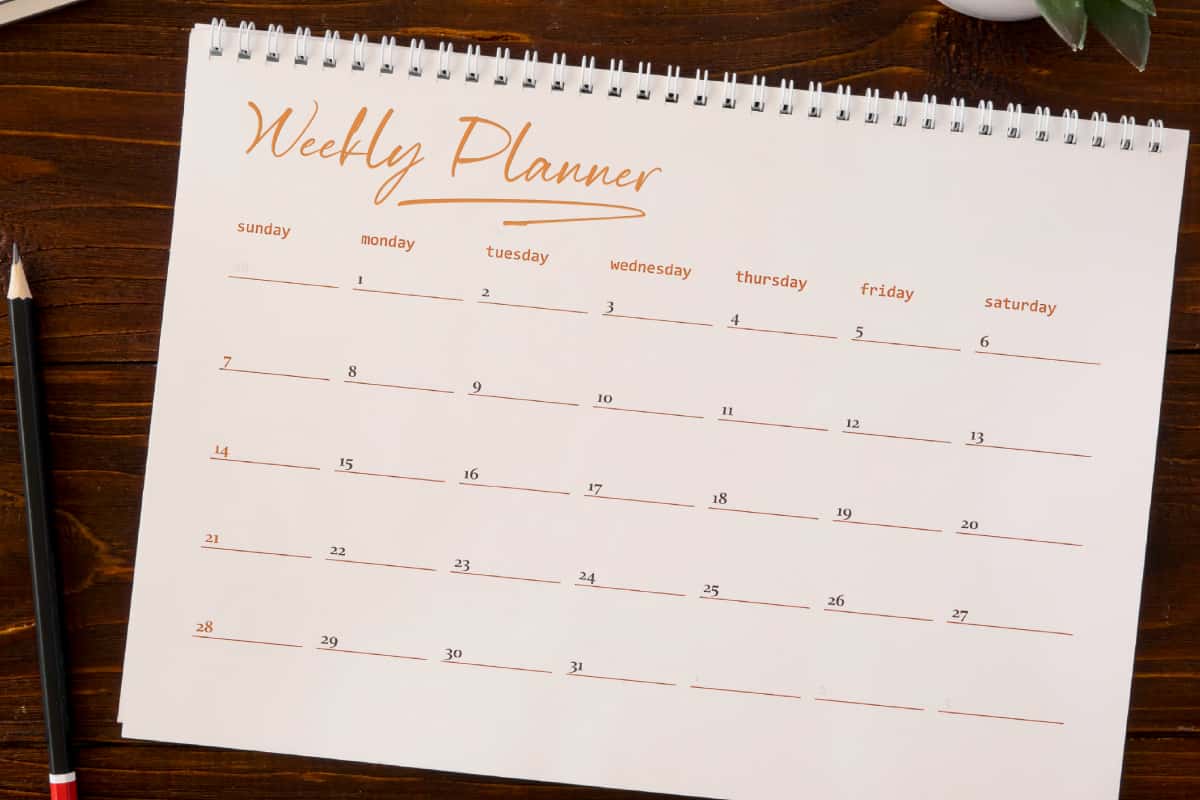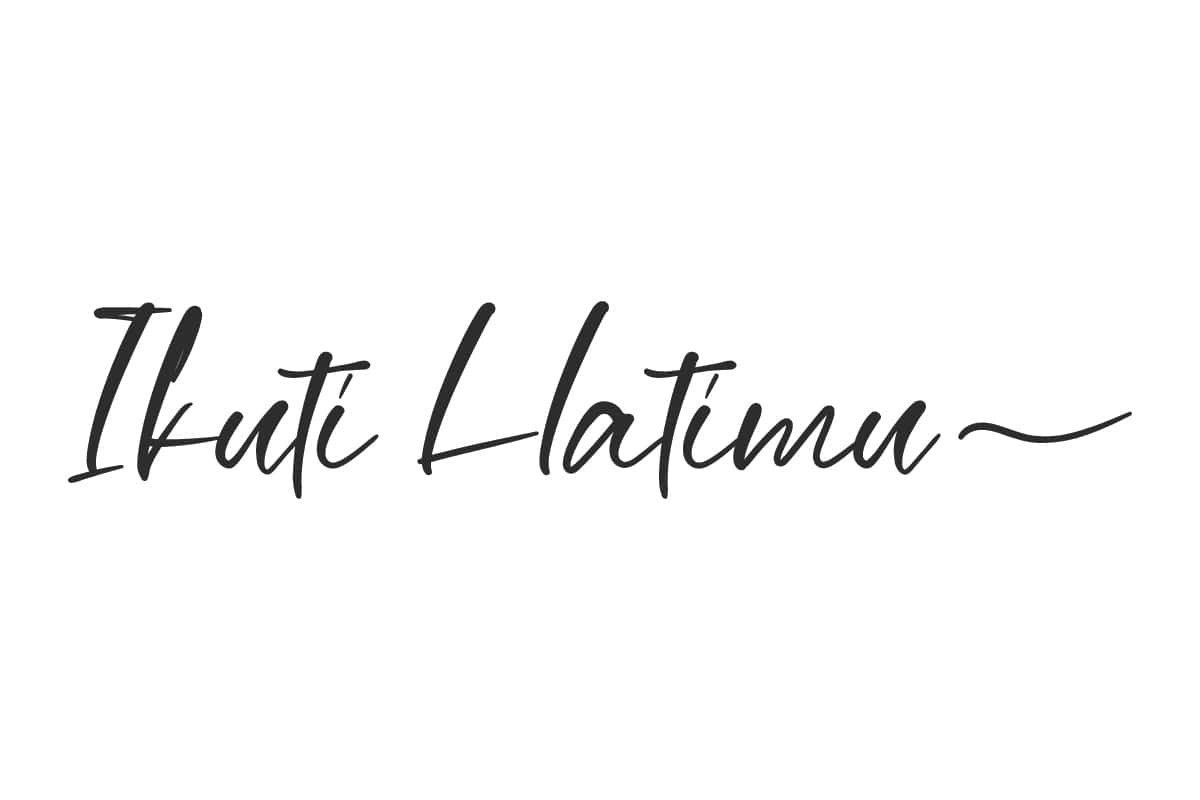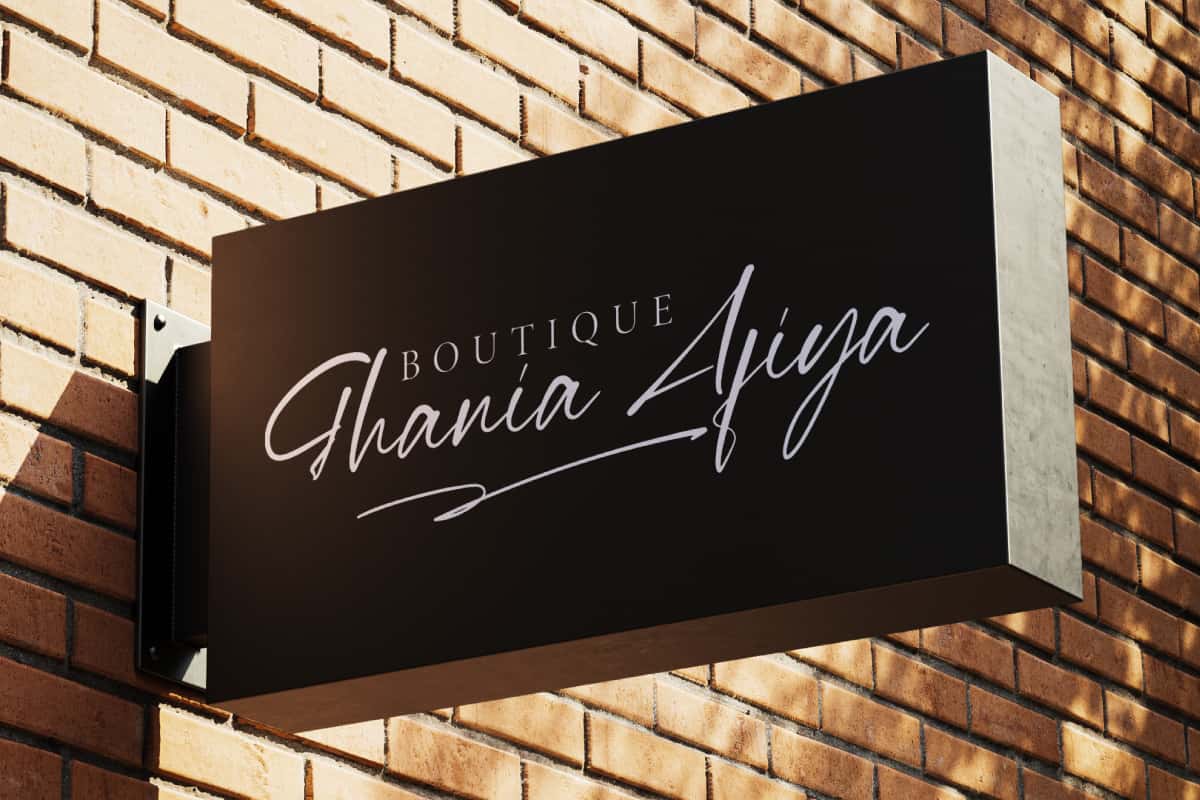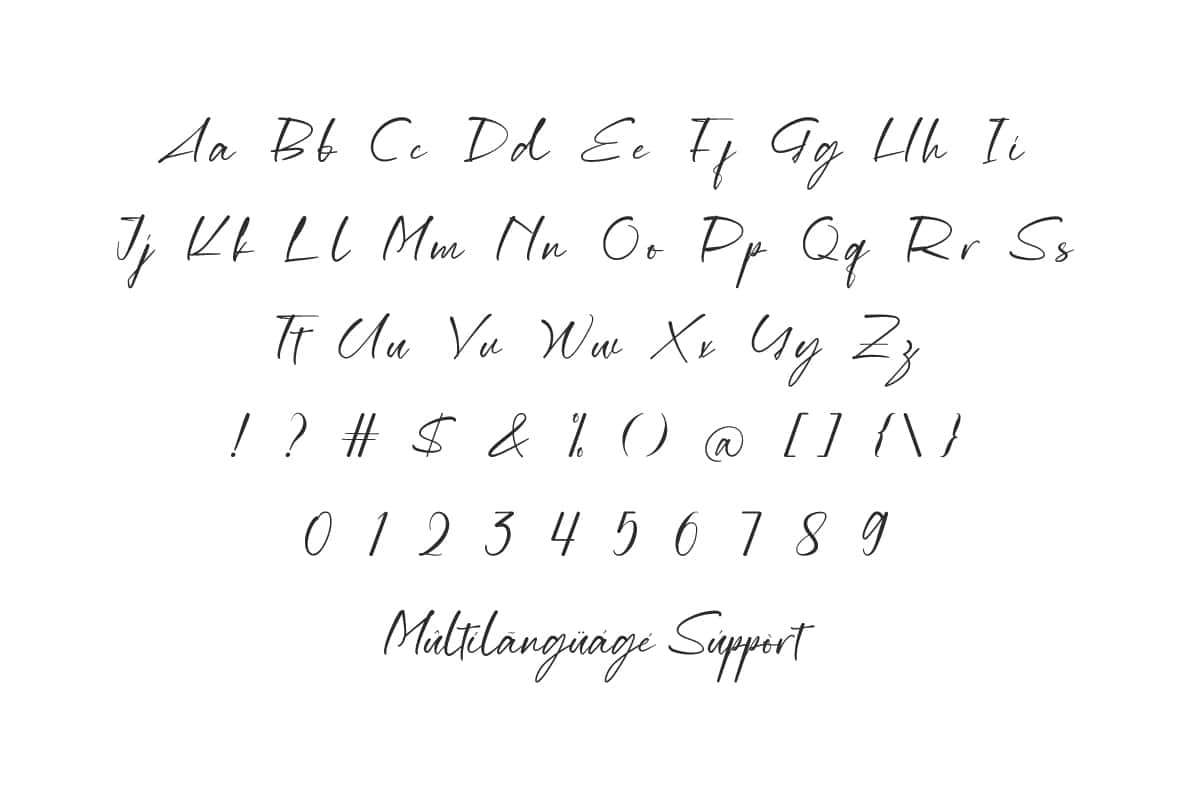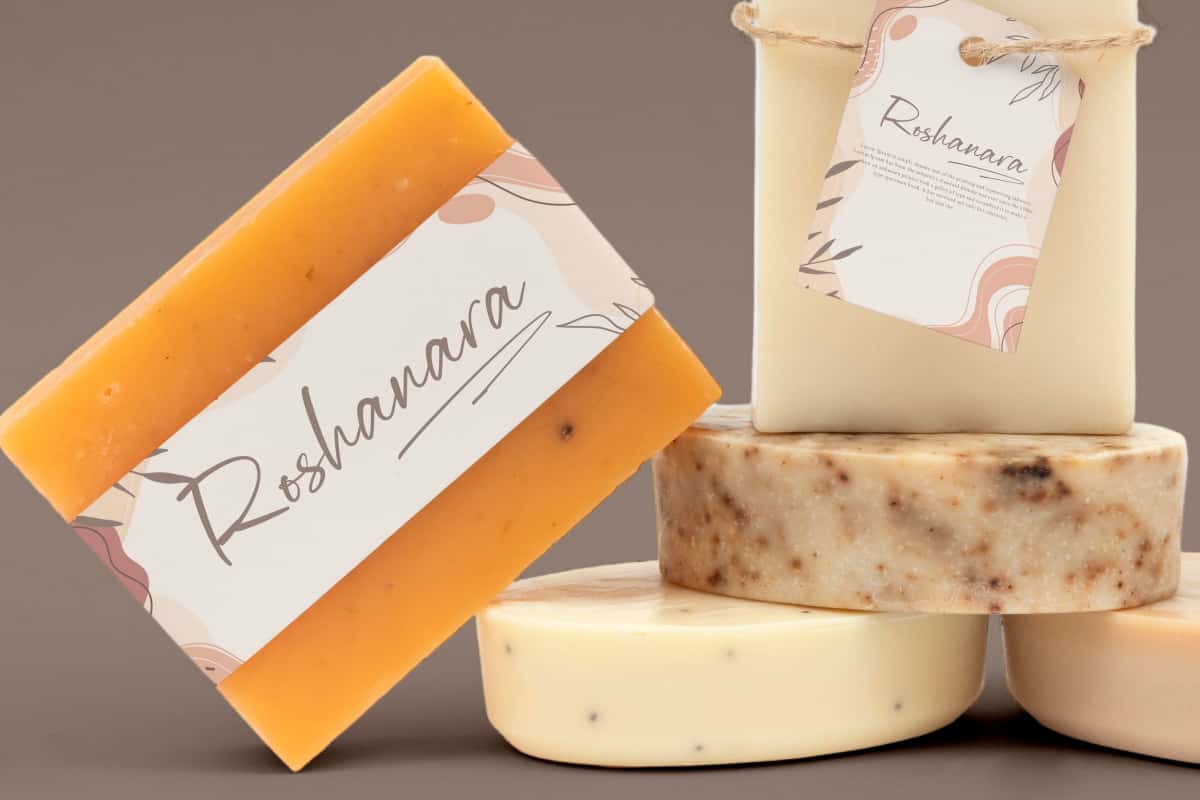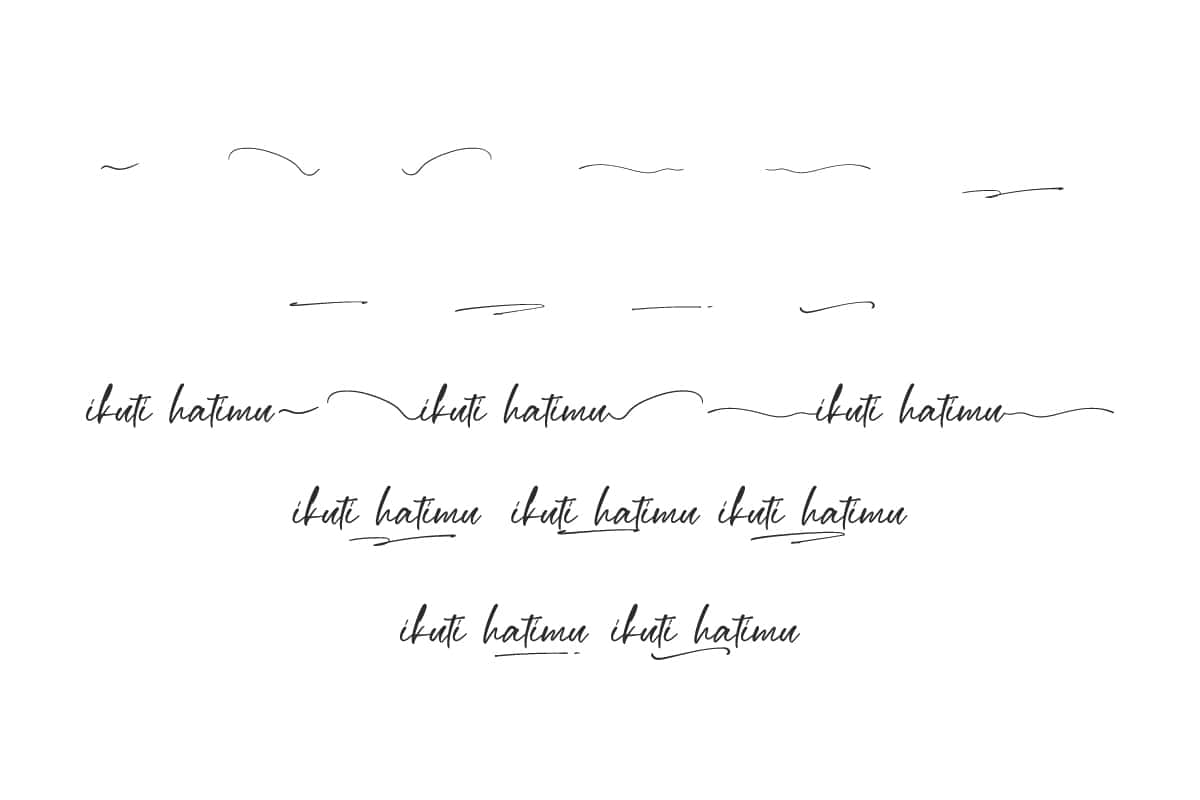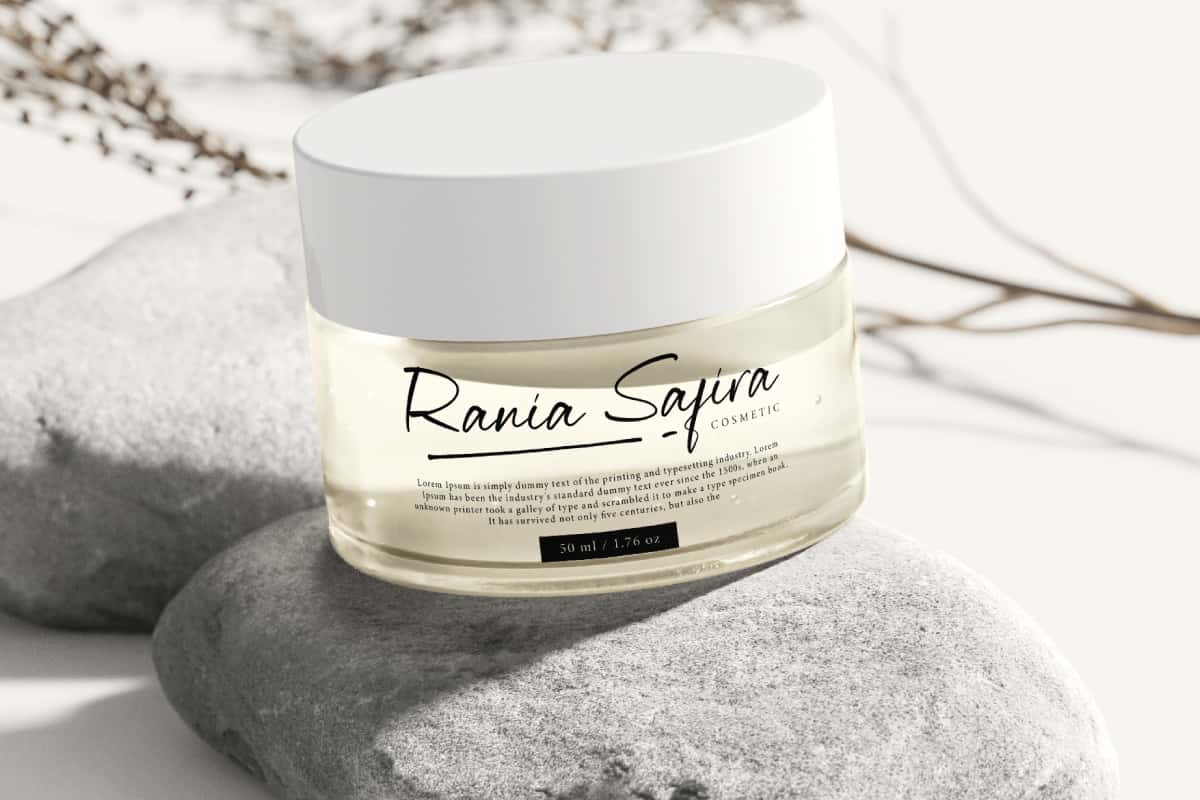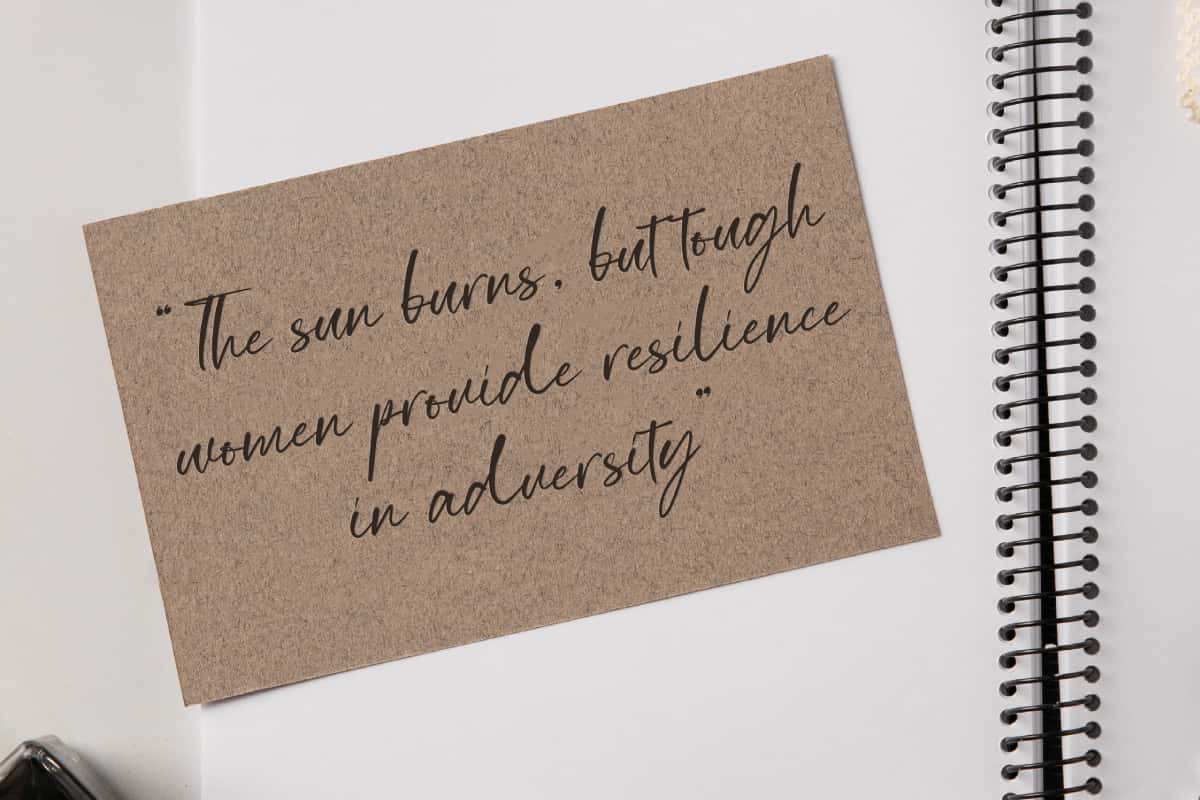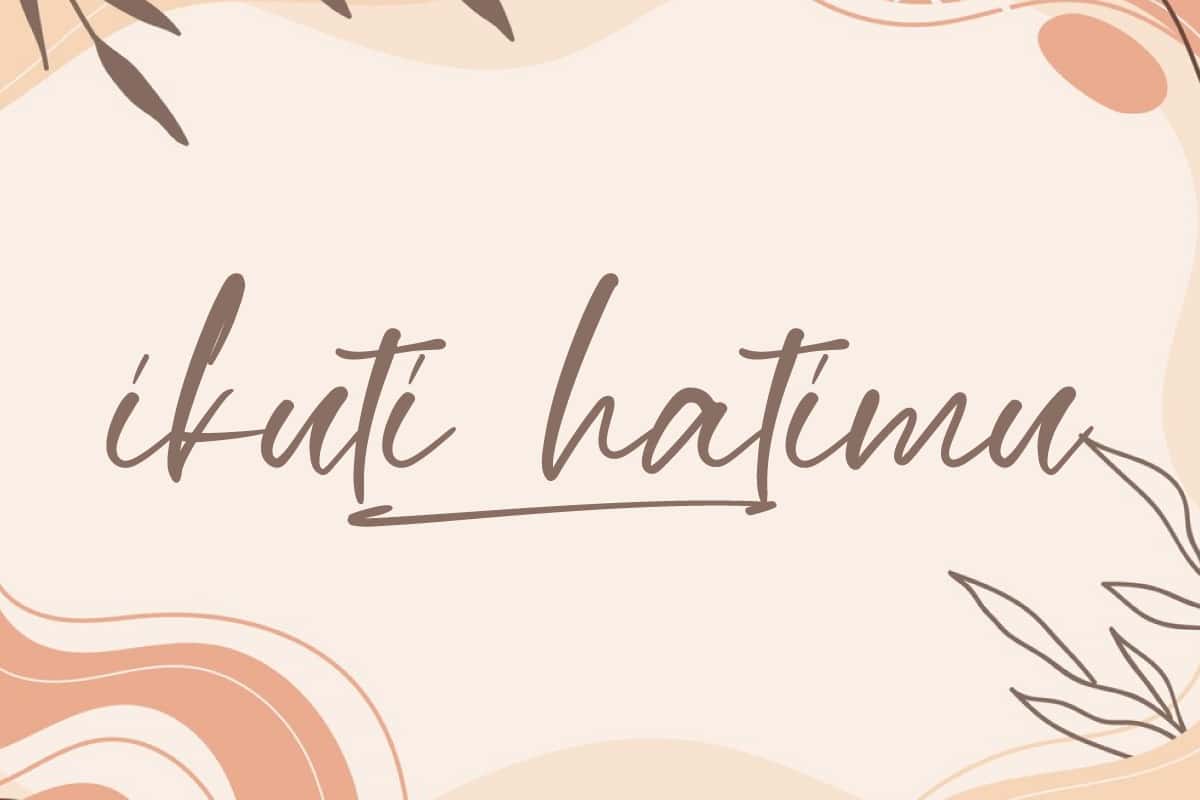
Ikuti Hatimu Font is a trendy and elegant handwritten font with signature style that has a beautiful swoosh character. Perfect for advertising, branding, etc.
Ikuti Hatimu Font is a beautiful and elegant handwritten font combined with a signature style that will make your projects look awesome and can elevate your projects! Every stroke, and swoosh is created to convey happiness and elegance. It suitable for blogs, brand logo, card design, headers, label tag, product packaging, quotes, signage, sticker, template, title, website, etc.
Ikuti Hatimu Font includes a complete set of Basic Uppercase and Lowercase Characters, Numbers, Punctuation Marks, Symbols, and Swoosh. This font has a feminine and classy feel that will fit perfectly in a variety of edits, and can be used in advertising, boutique, cosmetic, graphic design, home furniture, publishing, printing, skincare, and more.